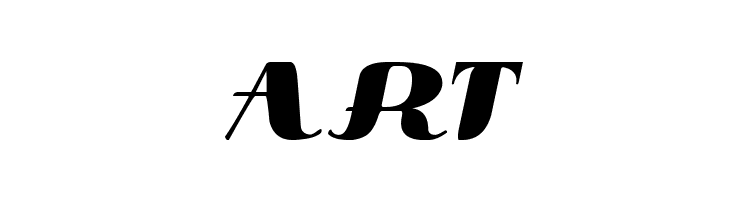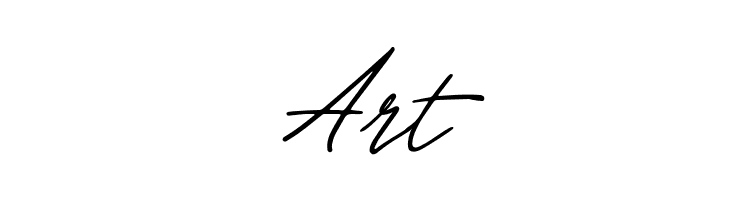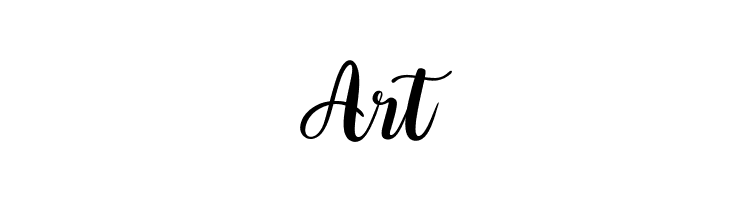
A dynamic brush-style font with bold, sweeping strokes and a hand-painted look.
A bold, italic font with sweeping curves and a modern calligraphic style.
A bold, dynamic script font with sweeping curves and sharp angles.
A bold, handwritten font with dynamic, sweeping strokes and a playful yet sophisticated style.
A dynamic, fluid handwritten script with elegant, sweeping curves.
A flowing, cursive font with elegant, sweeping strokes and decorative flourishes.
A lively and expressive handwritten script font with bold, sweeping curves.
A flowing, cursive font with elegant, sweeping strokes and a sophisticated appearance.
A bold, cursive font with elegant, sweeping curves and a handwritten style.
A flowing, cursive script with elegant, sweeping strokes.